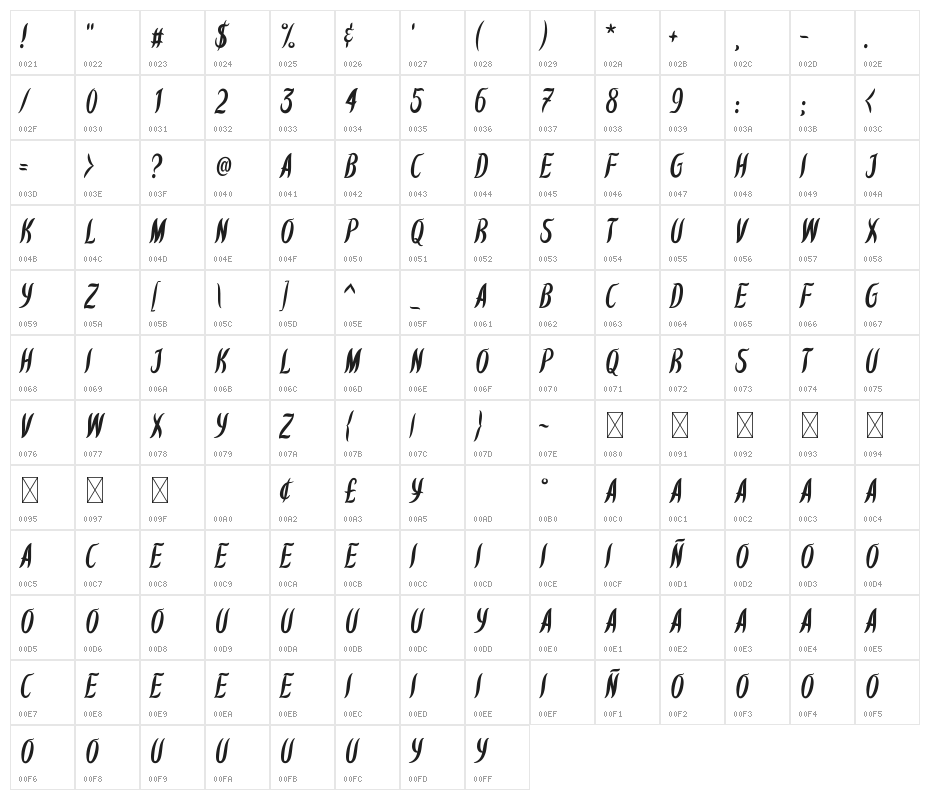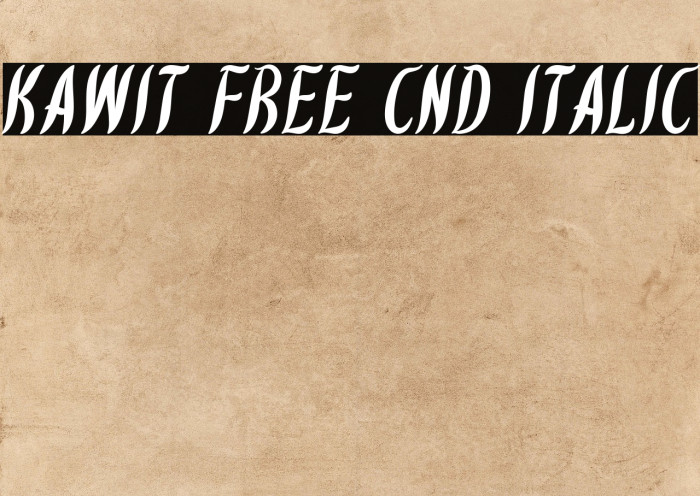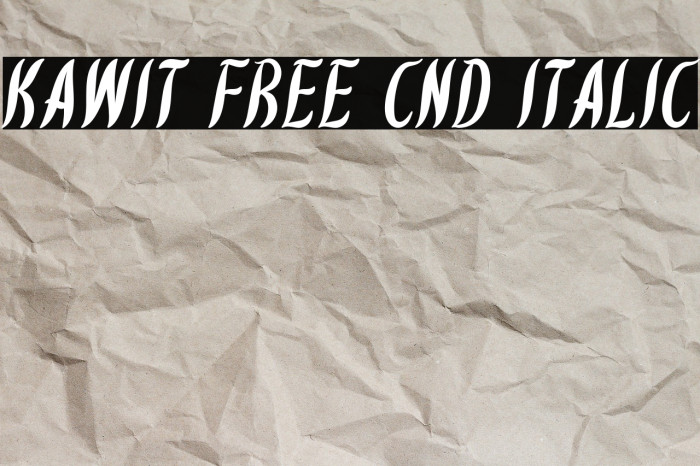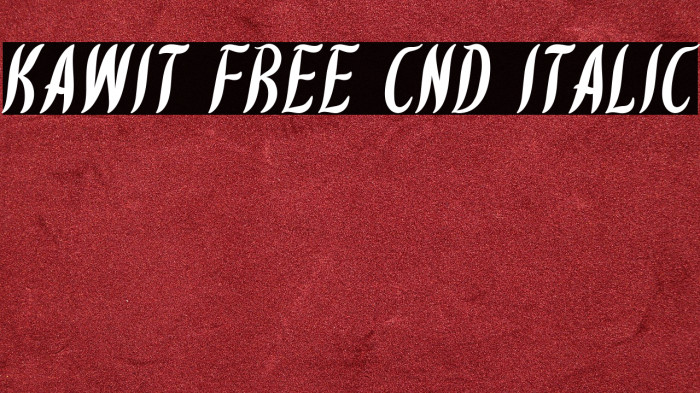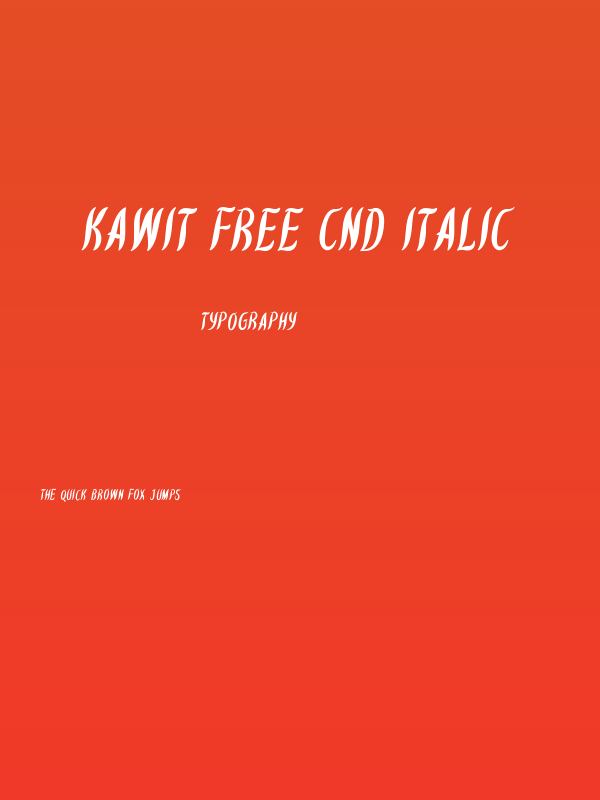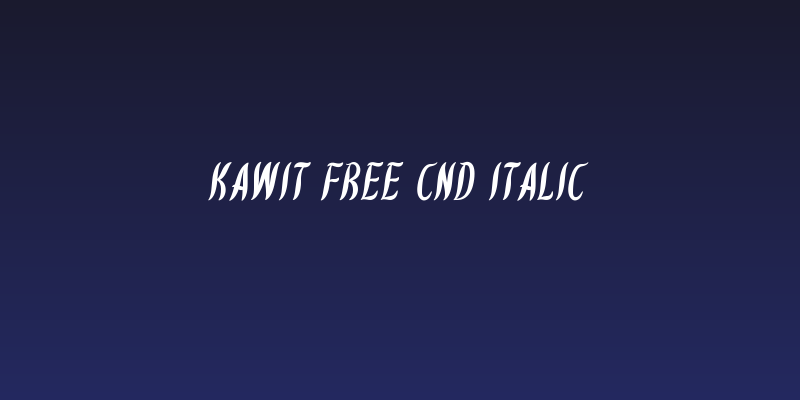
Kawit Free Cnd Italic Font
Kawit Free Cnd Italic Description
This font features a dynamic and expressive style, characterized by its italicized and condensed letterforms. The strokes are bold and fluid, giving a sense of motion and energy. The uppercase and lowercase letters maintain a consistent slant, enhancing the italic effect. The numbers and special characters follow the same stylistic approach, ensuring uniformity across all glyphs. The font's design is both modern and decorative, making it suitable for projects that require a bold and eye-catching typeface.